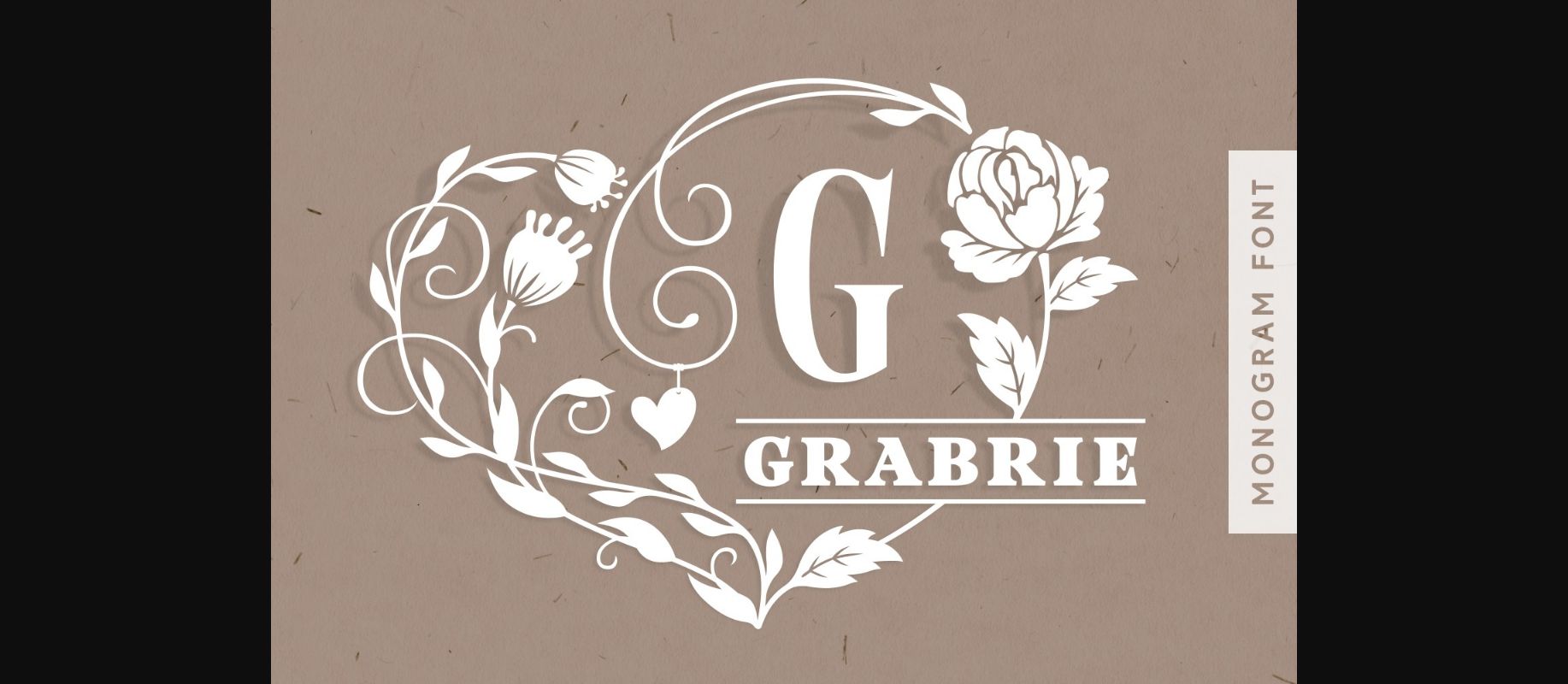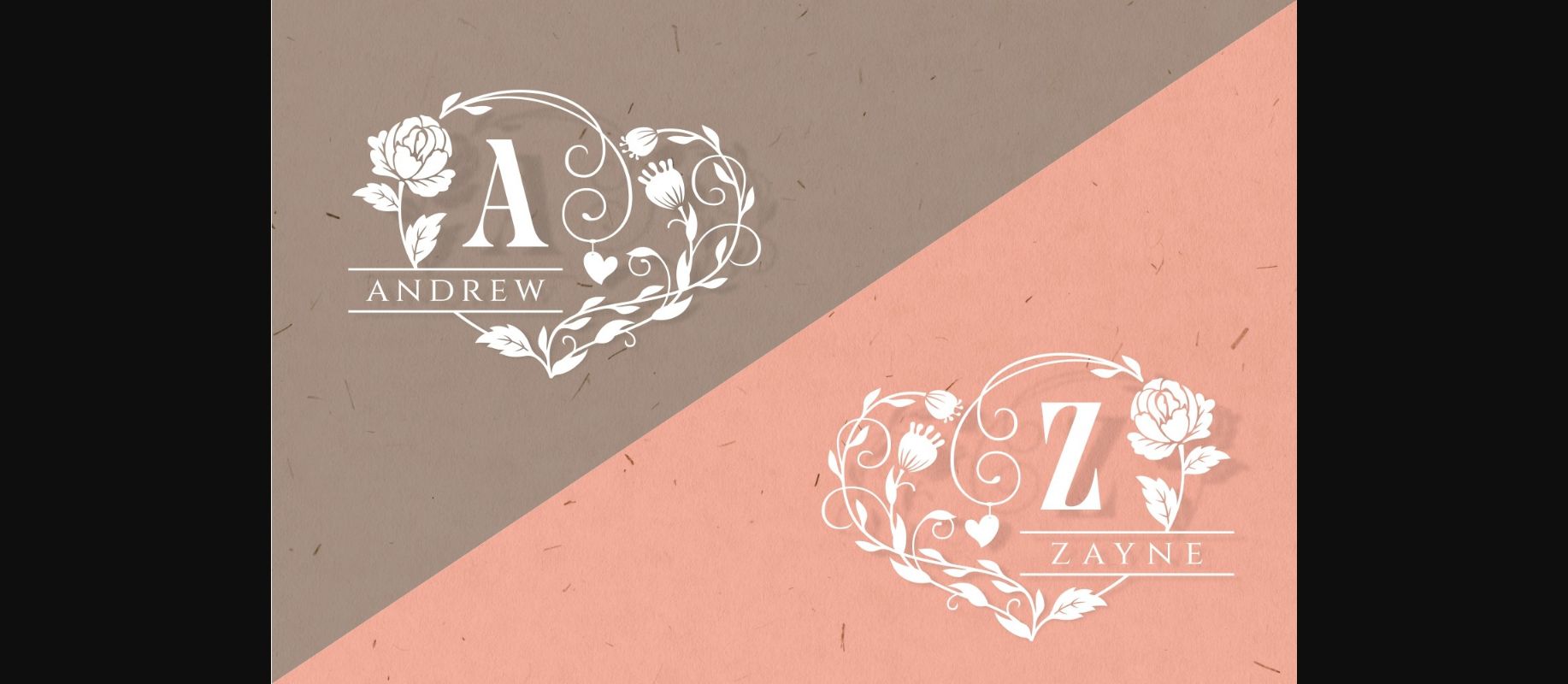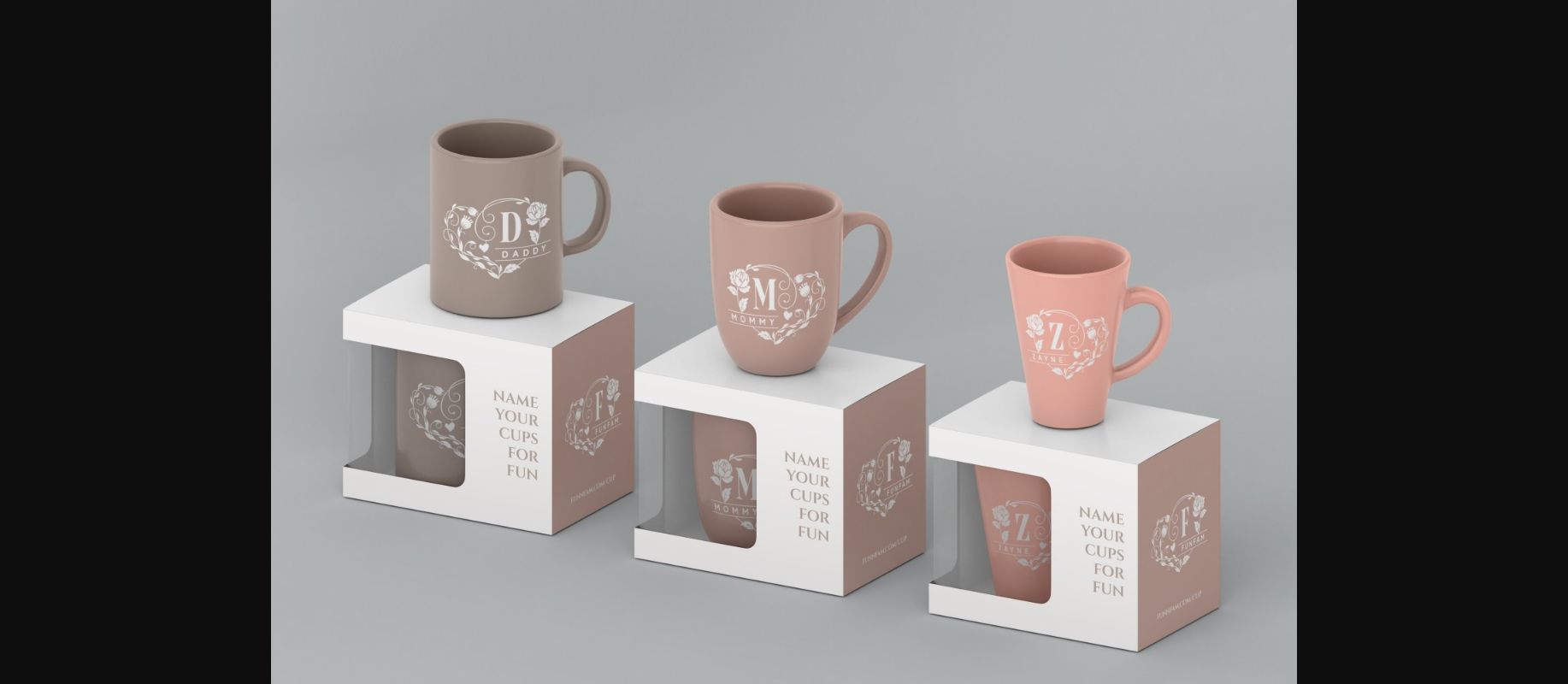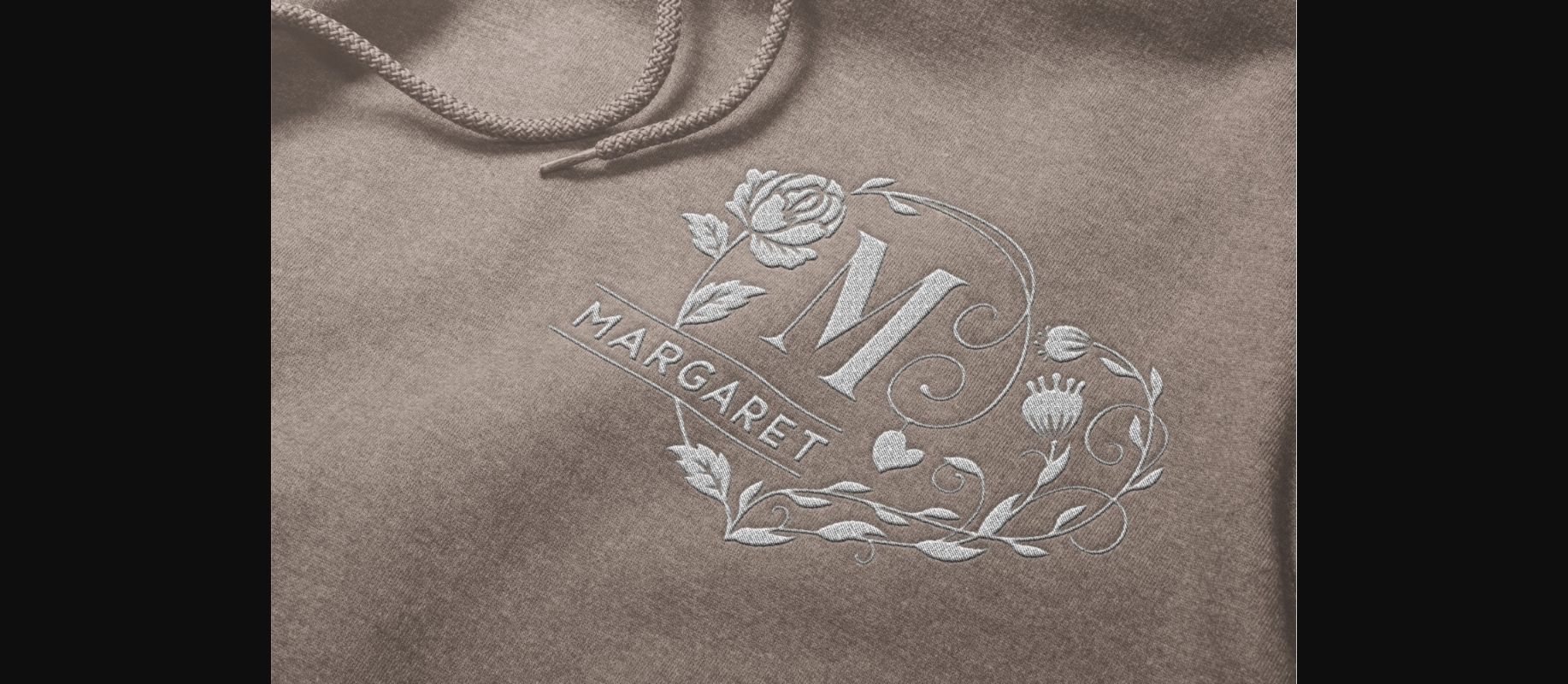
HomeDecorative FontsGrabrie Font Decorative Fonts Grabrie Font FacebookXPinterestWhatsApp 1 of 6 ... Grabrie Font Poster 2... Grabrie Font Poster 3... Grabrie Font Poster 4... Grabrie Font Poster 5... Grabrie Font Poster 6... About Grabrie Font Grabrie is a dainty and unique decorative font. Add this romantic and lovely looking font to each of your love letters, wedding invitations or favorite design ideas, and you will be astounded by the outcome. DOWNLOAD NOW People also explored Los Angeles Font Endless Loveness Font Crowd Heart Script Font Winter Sprinkle Font Everylove Font Forest Leaves Font Arthurok Font Freaky Font Marigold Font 462 0 TagsGrabrieGrabrie Font Previous articleMonobrom FontNext articlePeacock Font LEAVE A REPLY Cancel reply Comment: Please enter your comment! Name:* Please enter your name here Email:* You have entered an incorrect email address! Please enter your email address here Website: Save my name, email, and website in this browser for the next time I comment. Personal Use Free Beautiful Personal Use Free Read more about this font Veronica Personal Use Free Read more about this font Austin Personal Use Free Read more about this font Ciggs Personal Use Free Read more about this font BLOG Free vs Paid Fonts: Why Investing in Premium Fonts Is Worth It Free vs Paid Fonts: Why Premium Fonts Are Worth It in 2025 The debate of free vs paid fonts continues in the design world. While... Best Fonts for T-Shirt Design – Top 2025 Picks 5 Fonts That Will Dominate Design Trends in 2026 The 10 Best Handwriting Fonts to Add Personality to Your Designs